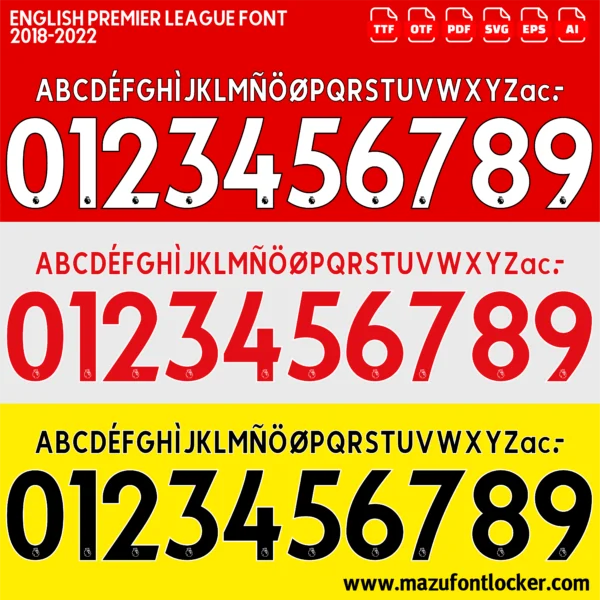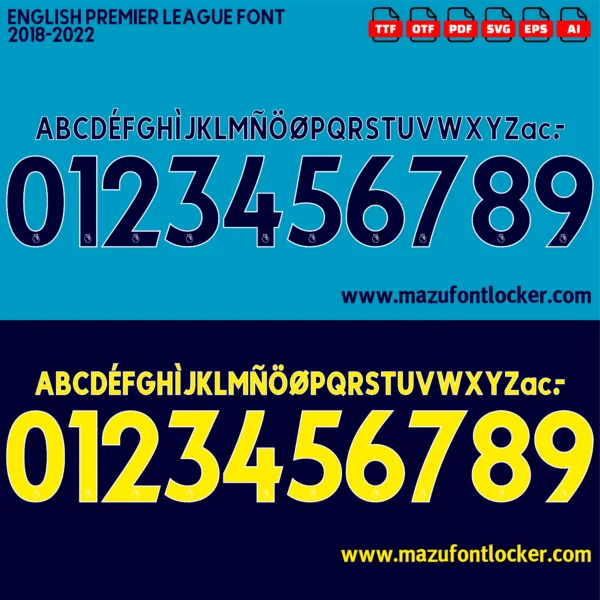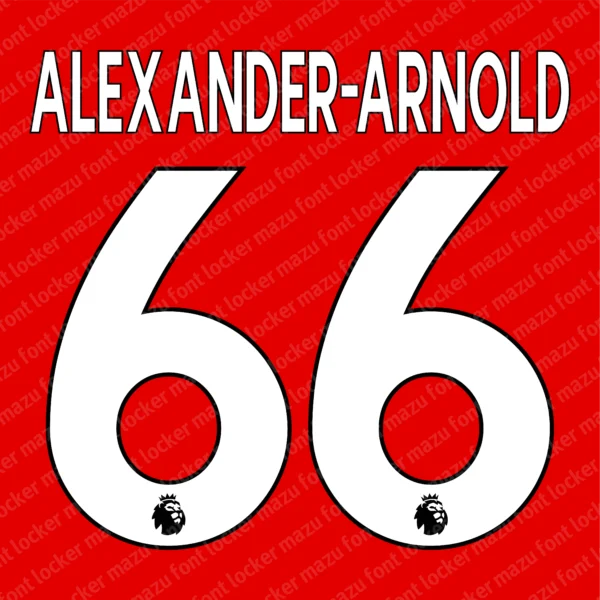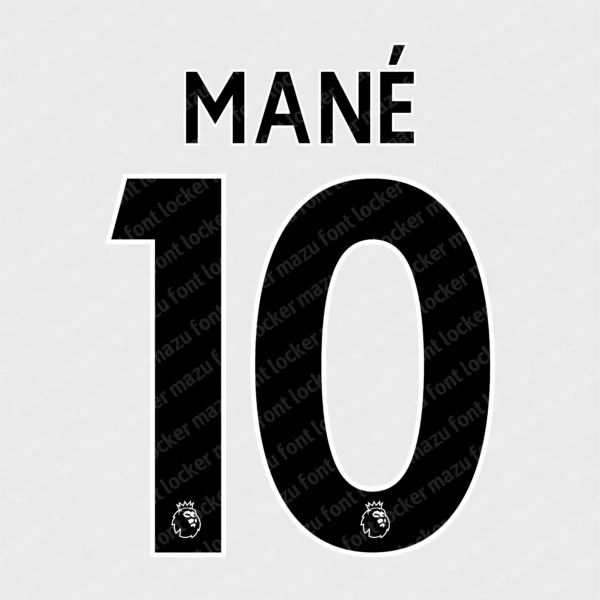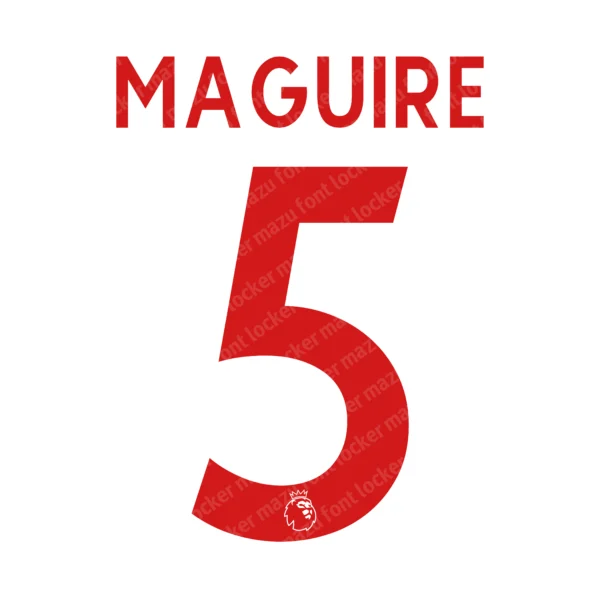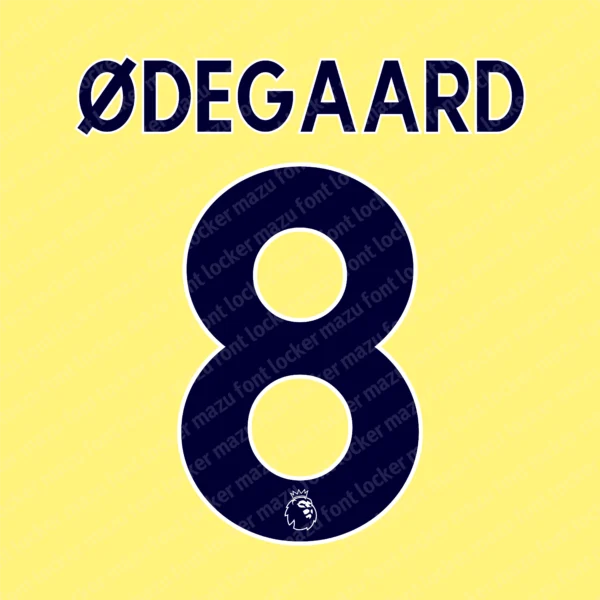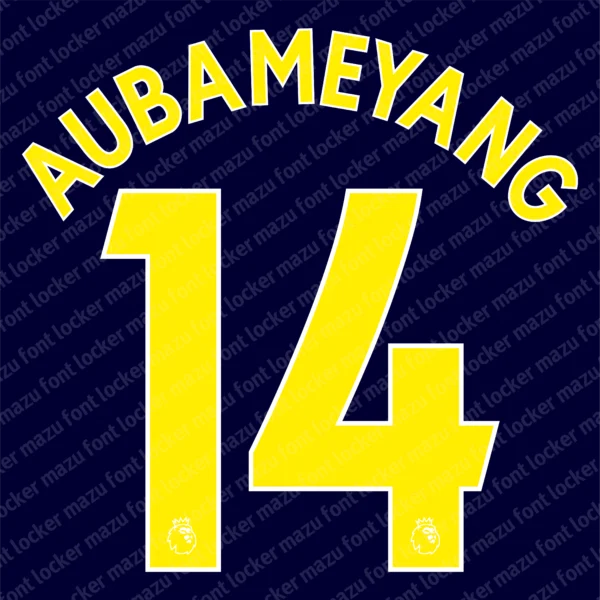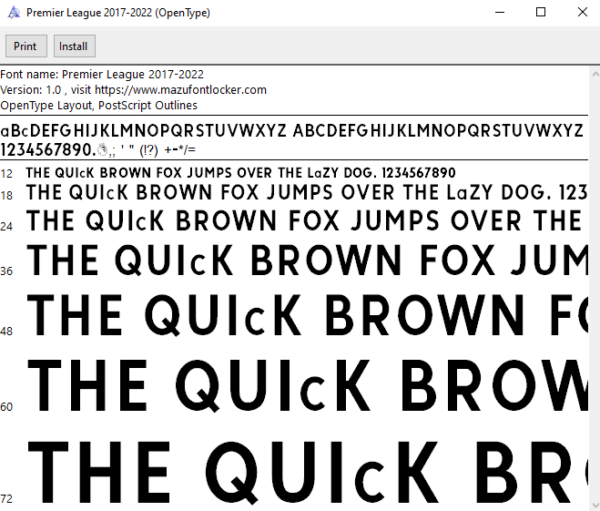
Premier League 2018-2022 Font Vector – Legendary English Masterpiece
Download the Premier League 2018-2022 Font Vector (AI, EPS, SVG, PDF, OTF, TTF) and unleash the bold, razor-sharp, and explosively elite match typography that defined the Premier League’s legendary 2018-2022 era as it dominated with unbreakable intensity, relentless global passion, and pure English football power on the pitch.
This font captures the sharp, commanding, and thunderous lettering that perfectly embodies the Premier League’s iconic competition identity, proud English football heritage, never-back-down mentality, and raw worldwide force — delivering unmatched authenticity, premium quality, volcanic energy, and elite top-flight dominance for professional jersey mockups, dynamic football graphics, premium sports branding, passionate fan creations, and high-end design projects.
Premier League 2018-2022 Font Vector – Bold Modern Matchday Typeface
The Premier League 2018-2022 Font Vector is a premium typeface that accurately recreates the distinctive match lettering used across the Premier League during the 2018-2022 seasons. This high-quality vector font kit captures the bold, clean, and instantly recognizable typography that defined the visual identity of England’s top flight during this period.
Designed for professional designers, football enthusiasts, jersey collectors, and passionate Premier League fans, the Premier League 2018-2022 Font Vector delivers exceptional authenticity for creating realistic jersey mockups, football merchandise, social media graphics, match posters, squad designs, and custom fan artwork. Every character has been carefully recreated to reflect the powerful and precise visual style that appeared on kits throughout those four memorable seasons.
Why Choose Premier League 2018-2022 Font Vector
This font stands out thanks to its precise vector construction and authentic league-inspired styling. Every letter and numeral has been meticulously recreated to match the distinctive football lettering aesthetic used by Premier League clubs during the 2018-2022 campaigns.
Whether you’re producing professional football kit templates, custom jersey concepts, or eye-catching football content, the Premier League 2018-2022 Font Vector delivers a genuine match-ready appearance inspired by the official typeface of the world’s most-watched football league.
The lettering featured in the Premier League 2018-2022 Font Vector combines clean geometric lines with bold modern proportions. The result is a premium and highly readable typeface that reflects the Premier League’s contemporary visual identity, sharp professionalism, and the high-intensity atmosphere of English top-flight football during this era.
- Complete uppercase A–Z alphabet and numbers 0–9 in authentic Premier League 2018-2022 inspired style
Premier League 2018-2022 Era
The 2018-2022 period marked a dynamic chapter in Premier League history, featuring intense title races, memorable European campaigns, and the continued global growth of English top-flight football. Clubs competed across four full seasons under the distinctive matchday typography that became closely associated with this era.
The Premier League 2018-2022 Font Vector is inspired by the distinctive football typography and visual identity used throughout these seasons, making it an excellent choice for designers creating custom jersey concepts, football posters, squad graphics, matchday artwork, and fan-made projects. For official league information, news, fixtures, and historical records, visit the official Premier League website.
The Premier League 2018-2022 Font Vector is an independently designed typeface package inspired by the official shirt lettering and visual identity associated with the Premier League during the 2018-2022 seasons. It has been carefully recreated for football enthusiasts, graphic designers, collectors, jersey creators, and fans producing custom football concepts, digital artwork, and fan-made projects. Please note that this is a fan-made design resource and is not an official product of the Premier League, the Football Association, UEFA, or any associated organization.